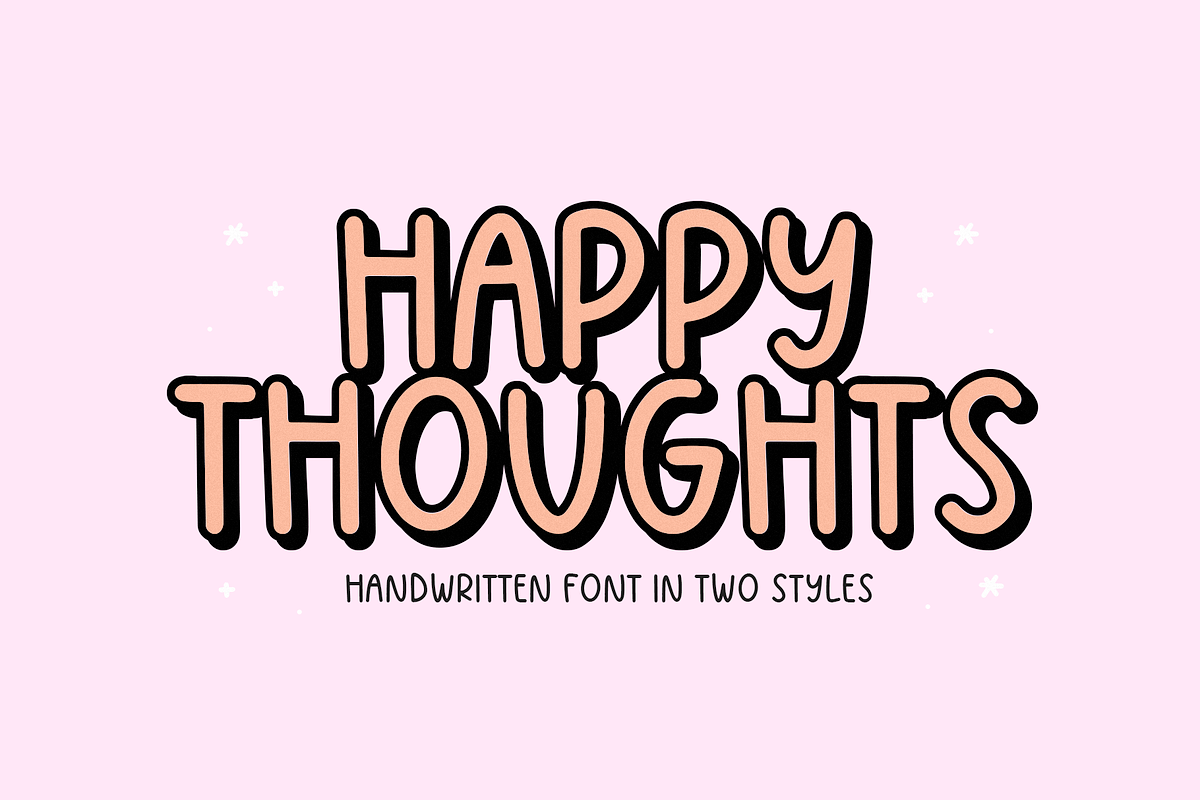
Happy Thoughts | Bubbly Font Duo Free Download
Happy Thoughts | Bubbly Font Duo Free Download is a playful and fun font pairing that brings a joyful and energetic touch to your designs. This duo includes a cheerful script font and a matching sans-serif, offering the perfect combination for creating dynamic logos, branding, invitations, and social media content. The script font adds a friendly, handwritten feel, while the sans-serif balances the design with clarity and simplicity. Whether you're designing for a children's brand, a cheerful event, or a creative campaign, Happy Thoughts | Bubbly Font Duo Free Download lets you explore its vibrant style in personal projects before purchasing a commercial license. Add a fun, uplifting vibe to your designs with this charming font duo.